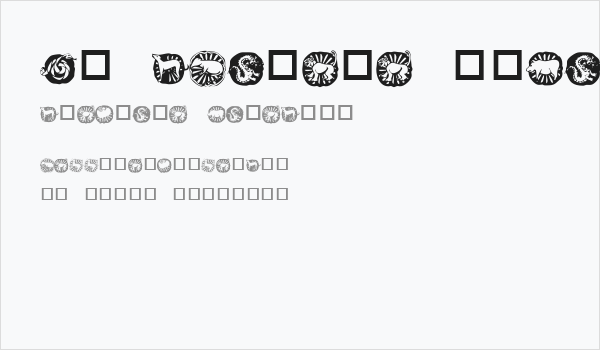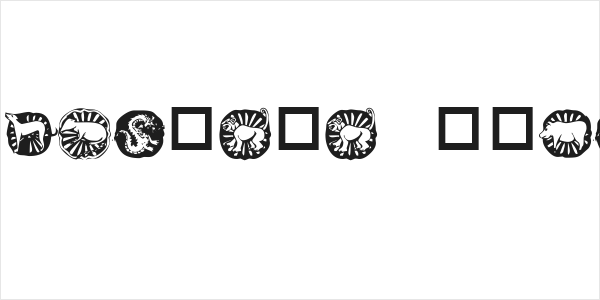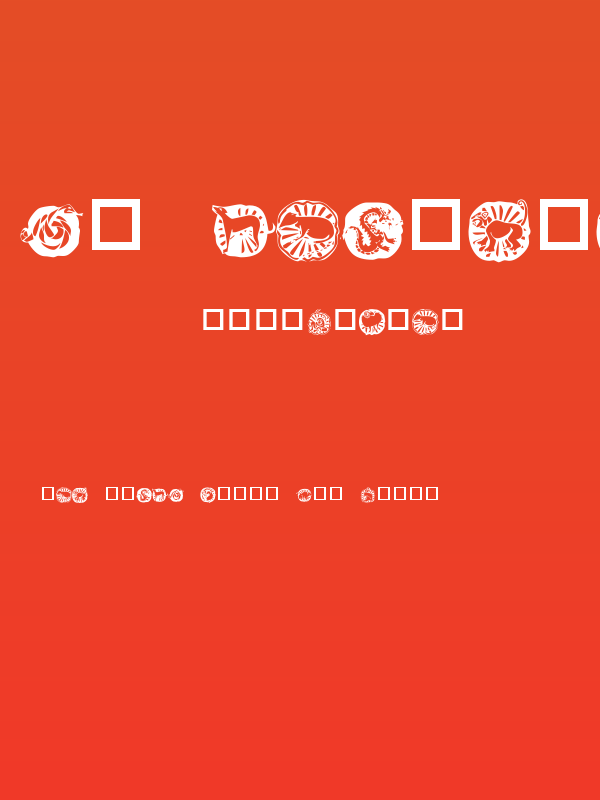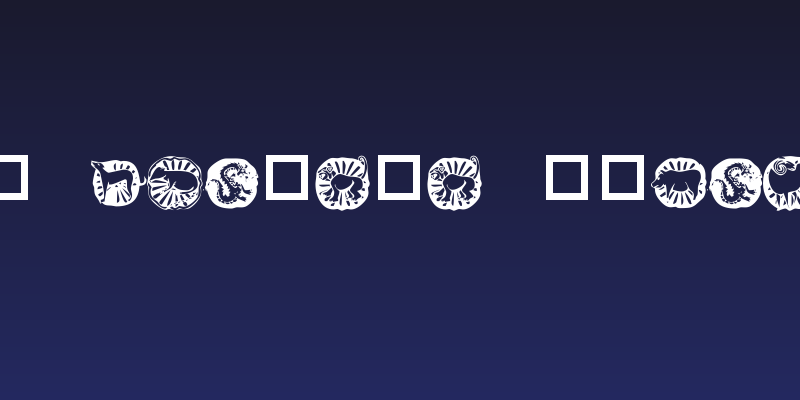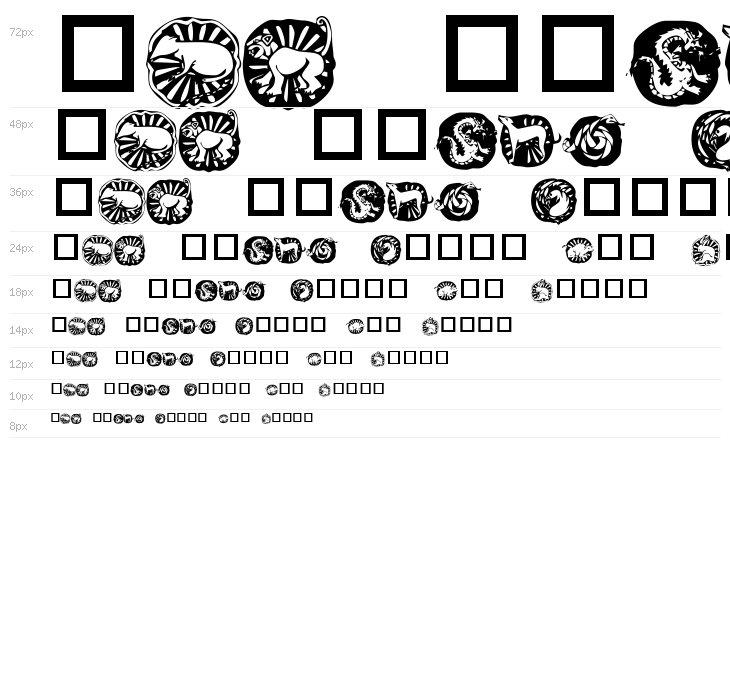
KR Chinese Zodiac Font
KR Chinese Zodiac Description
This font is a decorative and thematic typeface inspired by the Chinese Zodiac. Each character is intricately designed to represent one of the twelve zodiac animals, incorporating artistic elements that reflect traditional Chinese art styles. The font features bold, rounded shapes with detailed illustrations inside each character, making it highly decorative and visually engaging. The characters are enclosed in circular forms, adding a cohesive and uniform appearance across the set. This font is not suitable for body text due to its complexity but serves as an excellent choice for thematic projects that require a cultural or artistic flair.
Proposed ProjectsIdeal for cultural event posters, themed invitations, artistic projects, and educational materials about the Chinese Zodiac.